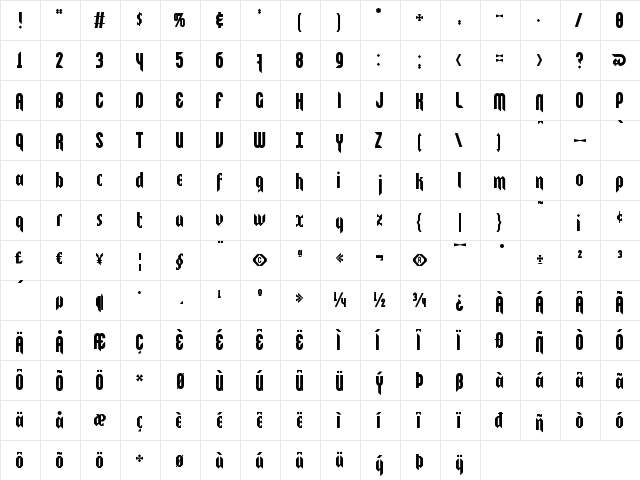
KEbab ... Font Preview
KEbab ...
Design Context for KEbab Typeface
KEbab is a composed and adaptable typeface that performs quietly and consistently across a wide range of design contexts.